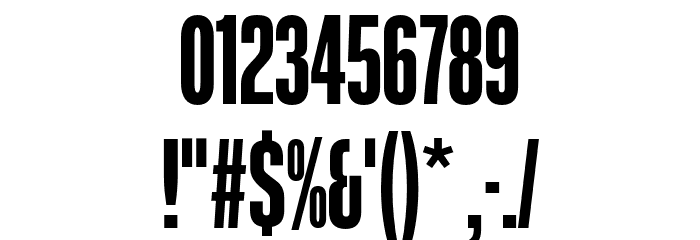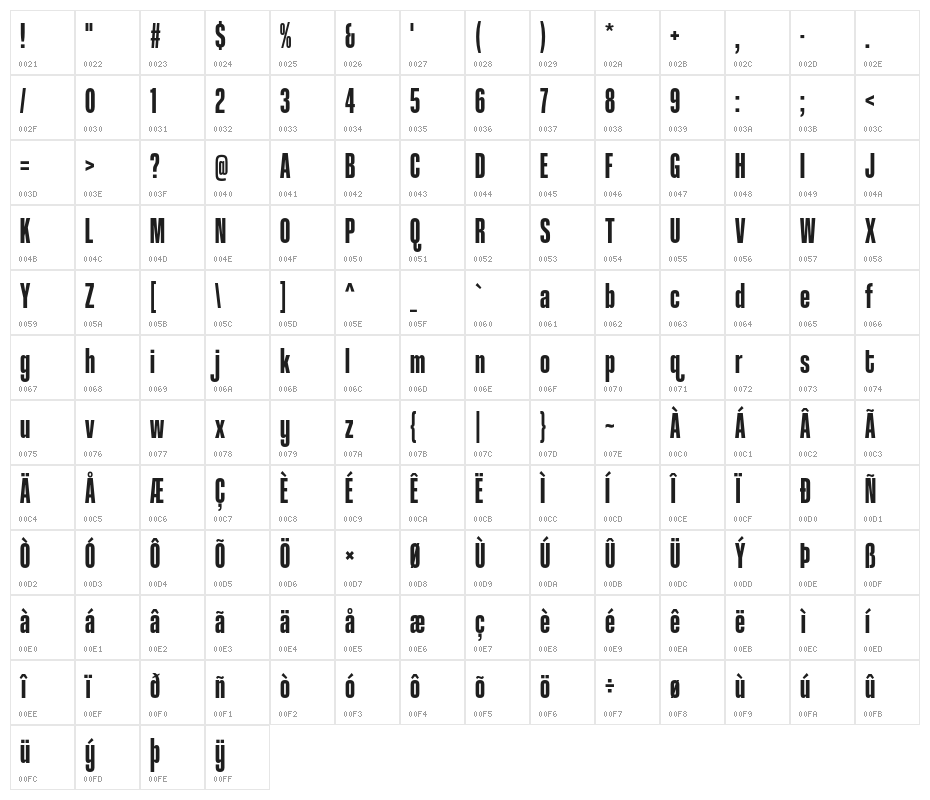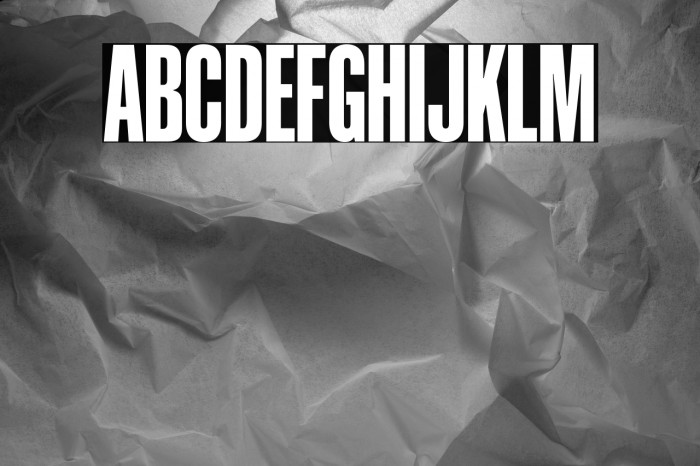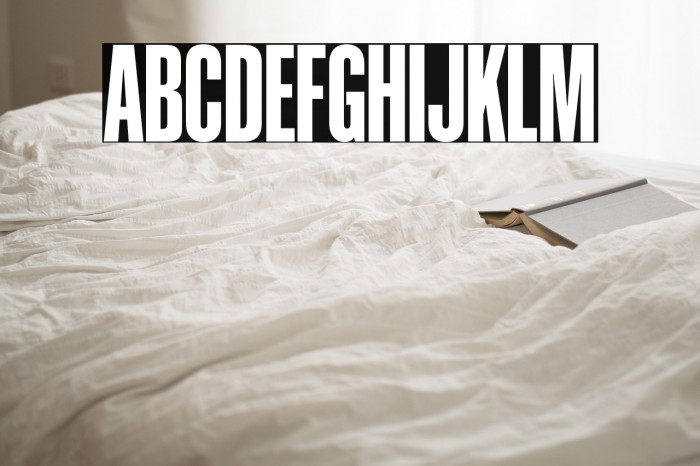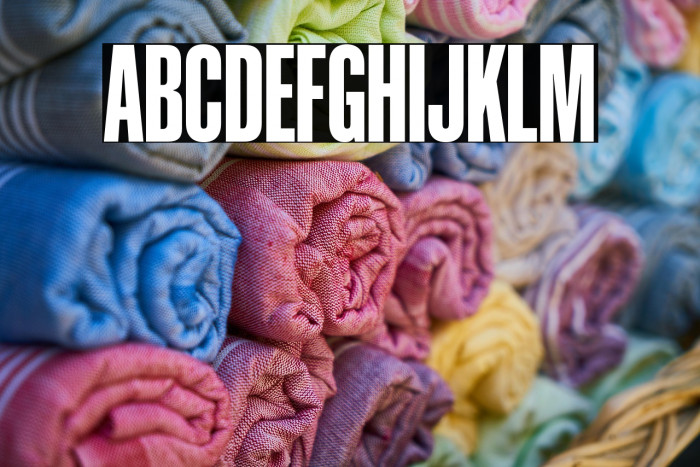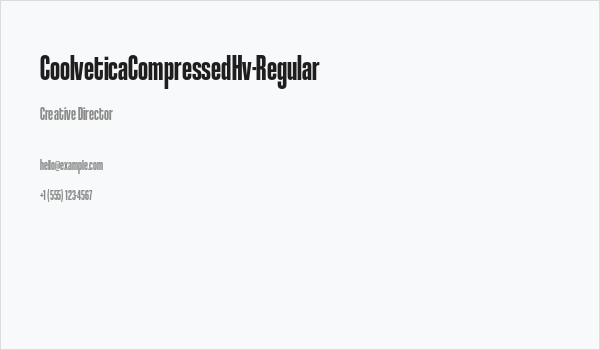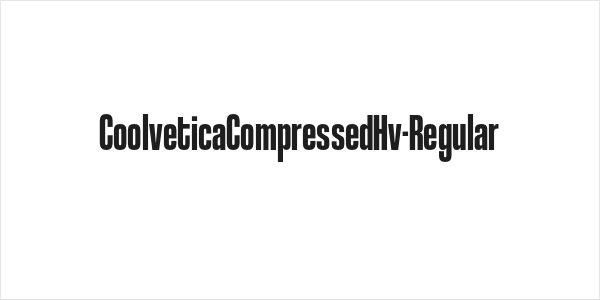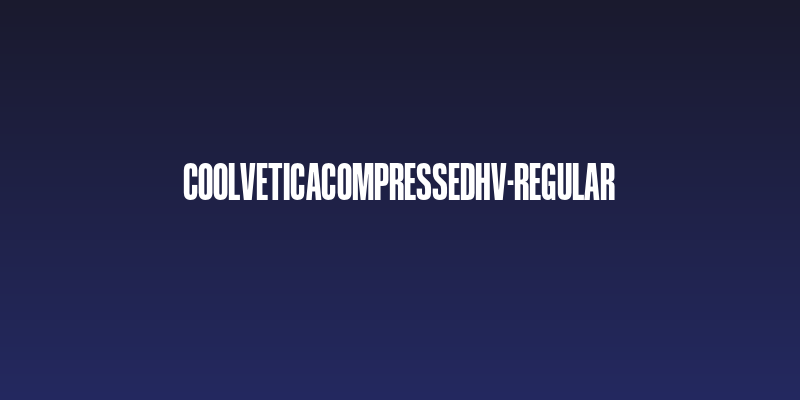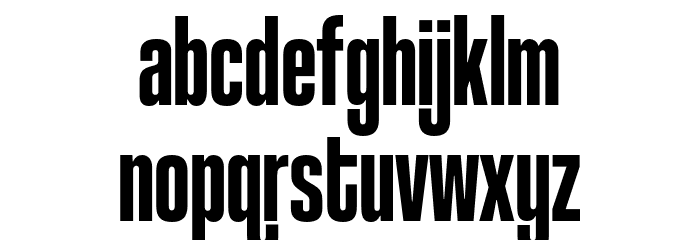
CoolveticaCompressedHv-Regular Font
CoolveticaCompressedHv-Regular Description
This font features a bold and condensed style, characterized by its tall, narrow letterforms and uniform stroke width. The uppercase and lowercase letters maintain a consistent height, creating a cohesive and streamlined appearance. The font's design is clean and modern, with a slight retro influence, making it versatile for various design applications. The numerals and special characters are designed to match the overall aesthetic, ensuring a harmonious look across all text elements. Its strong presence and legibility make it suitable for impactful headlines and branding.
| Proposed Projects | Ideal for branding, advertising, posters, and headlines where a strong visual impact is needed. |